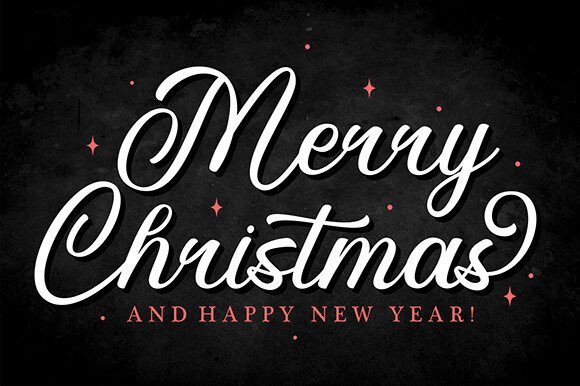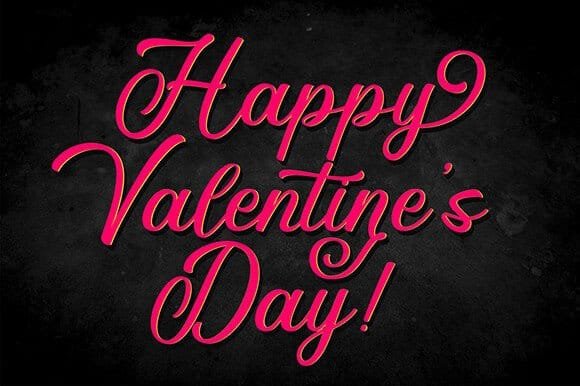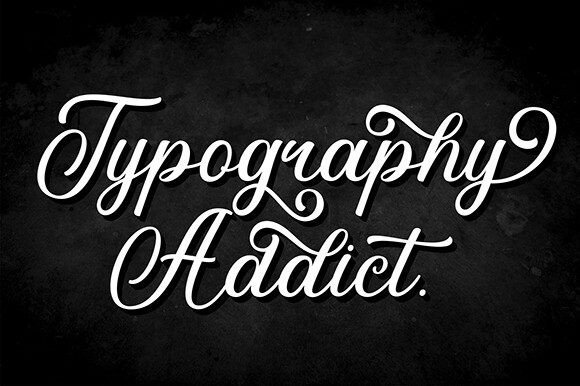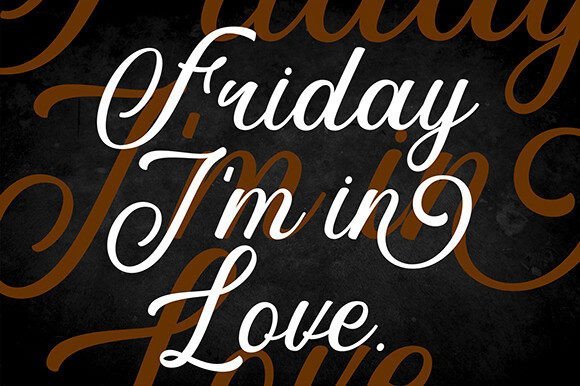
Flamingo Beauty Font
Flamingo Beauty is a Beautiful Calligraphy Font. It’s perfect for branding, wedding invitations, photography, Neon signs, bloggers, logos, greeting cards, logos, Quotes, and more.